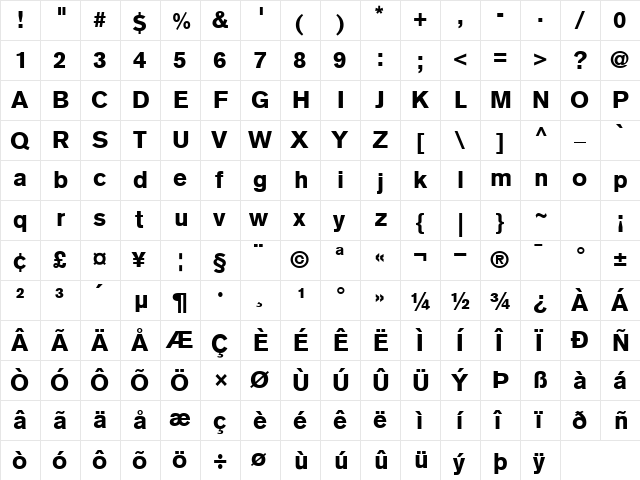
AkzidenzGroteskCE Black Font Preview
AkzidenzGroteskCE Black
Design Context for AkzidenzGroteskCE Typeface
AkzidenzGroteskCE has the quiet confidence of well-executed sans-serif typography: versatile, unobtrusive, and dependable at any size.
Font Pairing: Works well alongside a characterful serif or display font that can carry the expressive load while AkzidenzGroteskCE handles the functional copy.
Pro Tip: Pair AkzidenzGroteskCE with a display or serif font for headlines — its neutral character makes it an excellent supporting player in complex typographic systems.